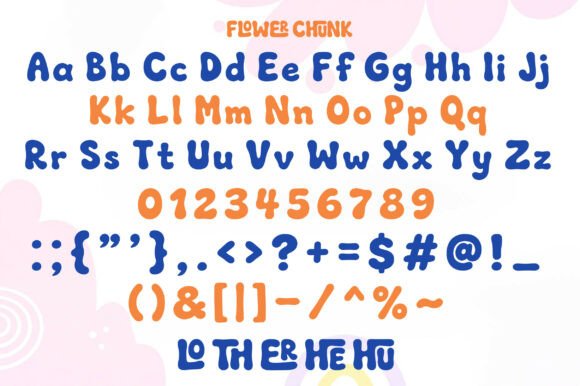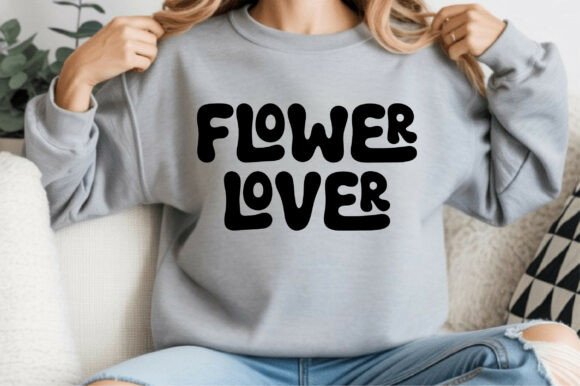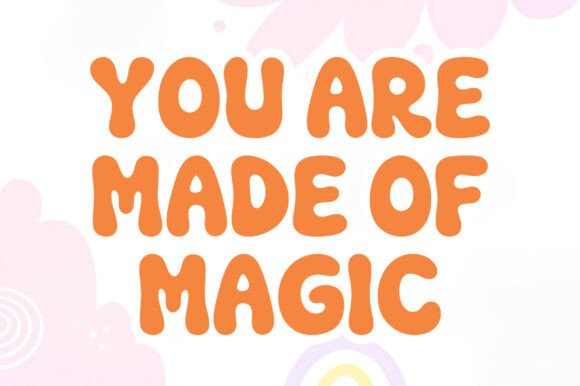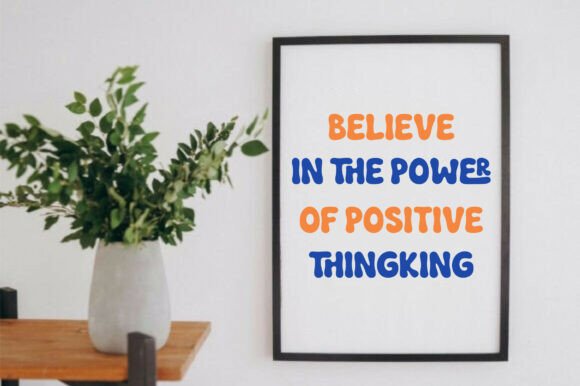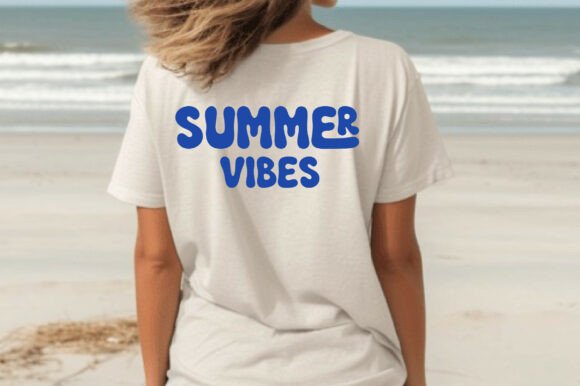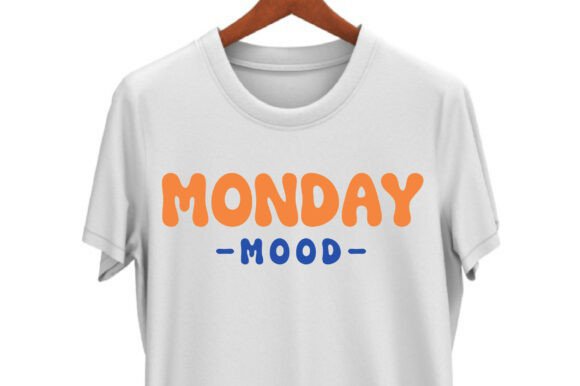
Introducing Flower Chunk Font: The Ultimate Retro Groovy Font for Creative Projects
Are you tired of using the same old fonts for your designs? Look no further! Flower Chunk Font is here to add a burst of fun and personality to your creative projects. This bold, retro groovy font is inspired by the playful and vibrant vibes of the 1970s, making it perfect for designers and crafters who want to add a touch of nostalgia to their work.
What Makes Flower Chunk Font So Special?
Flower Chunk Font is a bold, chunky font with soft, rounded shapes that give it a unique and playful look. Its bubbly style is reminiscent of the fun and carefree designs of the 1970s, making it perfect for t-shirt designs, sublimation, stickers, branding, and trendy creative projects. The font’s rounded edges and smooth curves give it a friendly and approachable feel, making it perfect for designs that need to convey a sense of fun and personality.
The Power of Ligatures: Elevating Your Designs with Style
One of the standout features of Flower Chunk Font is its stylish ligatures. Ligatures are special characters that combine two or more letters to create a unique and stylish look. In the case of Flower Chunk Font, the ligatures are designed to add a smoother, more unique look to your designs. This means that you can create designs that are not only fun and playful but also sophisticated and stylish.
Flower Chunk Font is perfect for designers and crafters who want to add a touch of personality to their work. Whether you’re creating t-shirt designs, sublimation products, stickers, or branding materials, this font is sure to make your designs stand out. Its unique and playful style makes it perfect for a wide range of creative projects, from fun and quirky designs to more sophisticated and stylish ones.
Add a Cheerful Vintage Feel to Your Designs
Flower Chunk Font is all about adding a cheerful vintage feel to your designs. Its retro groovy style is inspired by the fun and playful designs of the 1970s, making it perfect for designers who want to create designs that are nostalgic and fun. The font’s bold, chunky shapes and stylish ligatures give it a unique and handmade look that’s sure to make your designs stand out.
Why Choose Flower Chunk Font?
So why choose Flower Chunk Font for your creative projects? Here are just a few reasons:
- Unique and playful style: Flower Chunk Font has a unique and playful style that’s sure to make your designs stand out.
- Retro groovy vibe: The font’s retro groovy vibe is inspired by the fun and playful designs of the 1970s.
- Stylish ligatures: The font’s stylish ligatures add a smoother, more unique look to your designs.
- Perfect for designers and crafters: Flower Chunk Font is perfect for designers and crafters who want to add a touch of personality to their work.
- Cheerful vintage feel: The font adds a cheerful vintage feel to your designs, making them perfect for a wide range of creative projects.
In conclusion, Flower Chunk Font is a bold, retro groovy font that’s perfect for designers and crafters who want to add a touch of personality to their work. Its unique and playful style, stylish ligatures, and cheerful vintage feel make it perfect for a wide range of creative projects, from t-shirt designs and sublimation products to stickers and branding materials. So why not give Flower Chunk Font a try and see how it can elevate your designs to the next level?